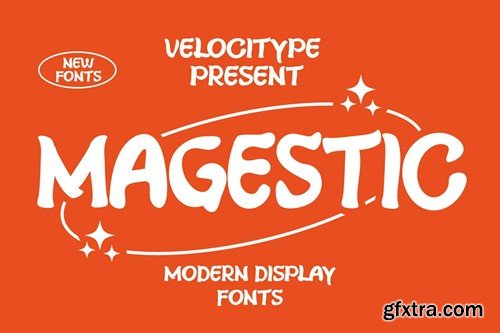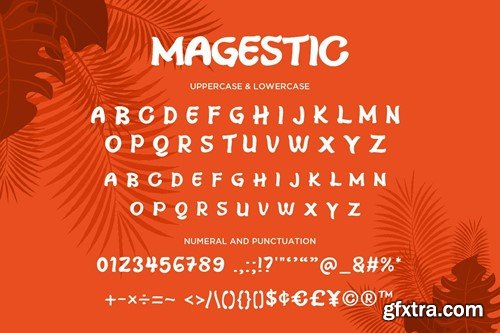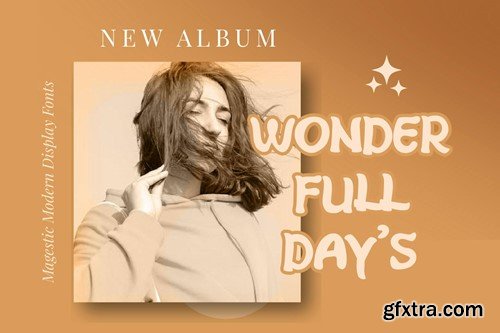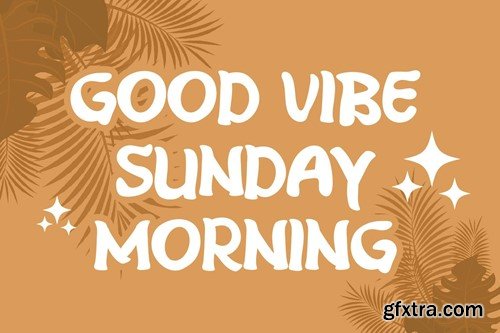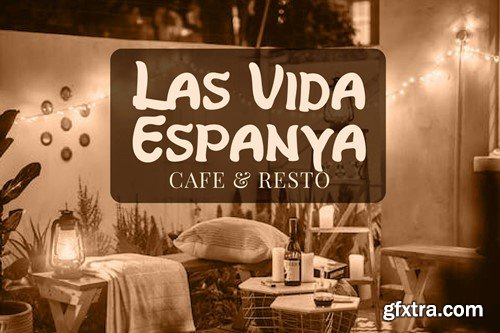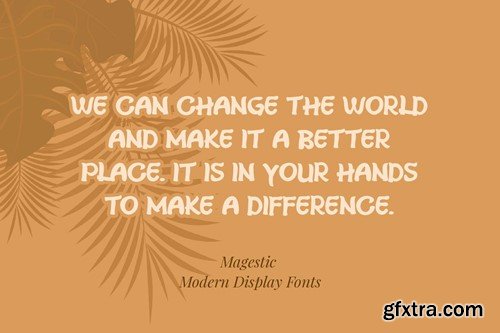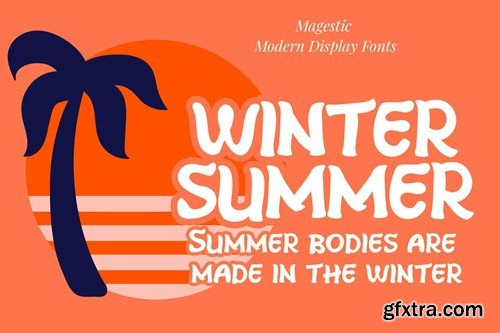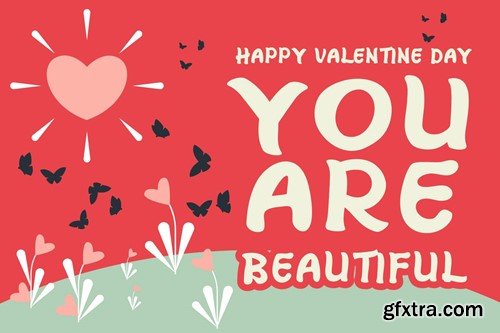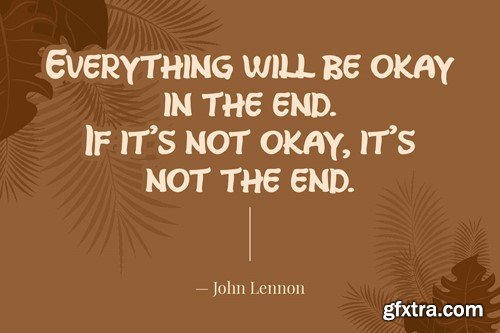
Magestic - Modern Display Allcaps fonts
Magestic is a Modern Display Allcaps fonts, will be suitable for any projects such as branding, promotional ads, quotes design, merchandise, social media and much more. make your work or your business to high level!!! special events, and all your other lovely projects that need beautiful handwriting taste.
• Numerals
• Punctuations (OpenType Standard)
• Accents (Multilingual Characters)